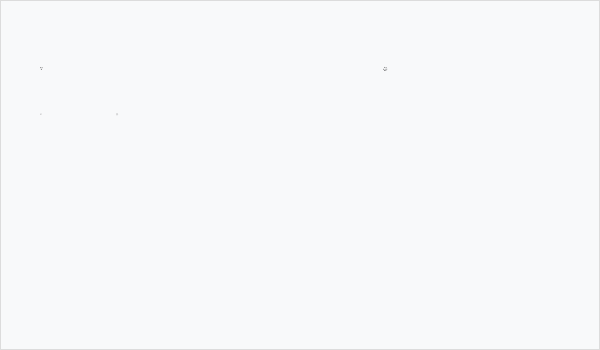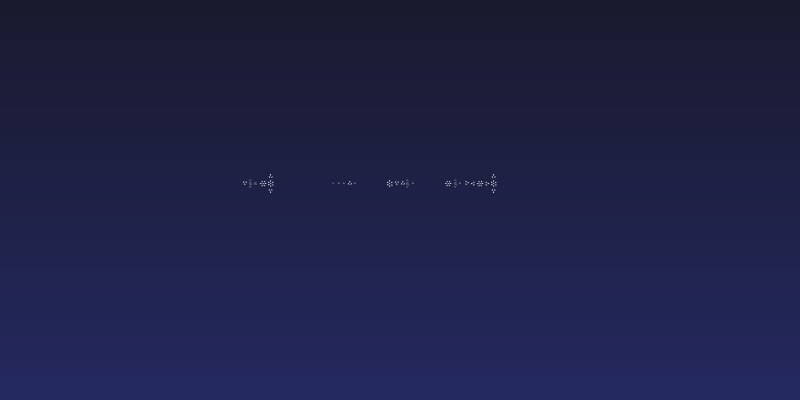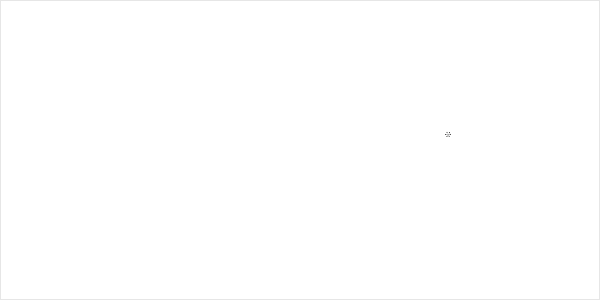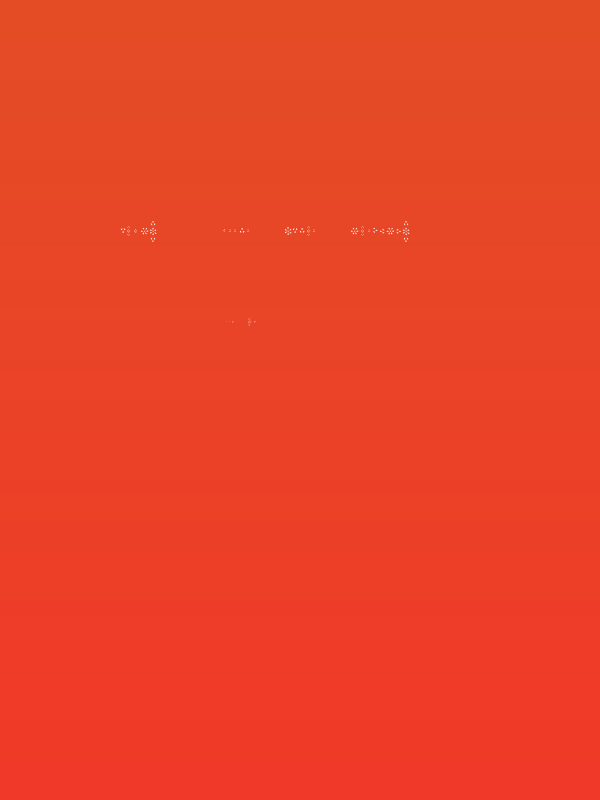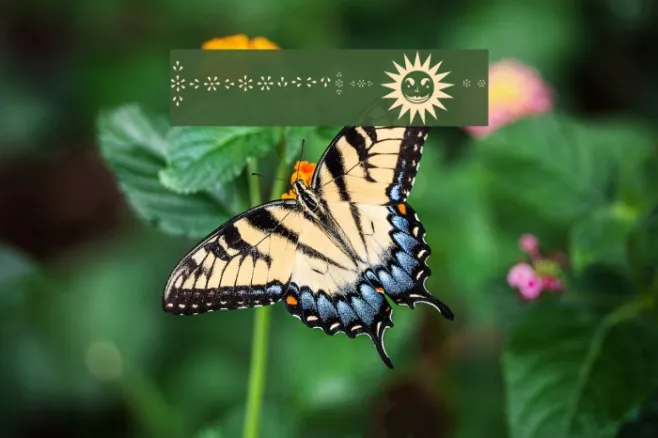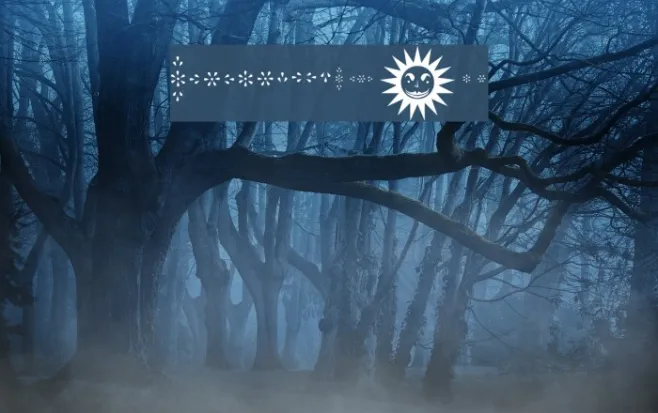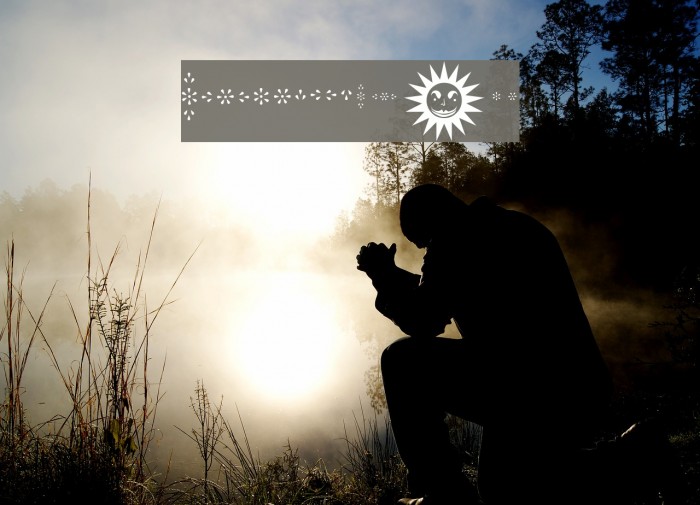
Hilda Sonnenschein Dingbats Font
This collection features a whimsical array of dingbats, including floral motifs, celestial symbols, and decorative elements. The designs are intricate, with a playful sun face and various star-like shapes. Each symbol is crafted with attention to detail, making them suitable for adding a decorative touch to projects. The style is consistent throughout, with a focus on natural and celestial themes, providing a charming and artistic flair.